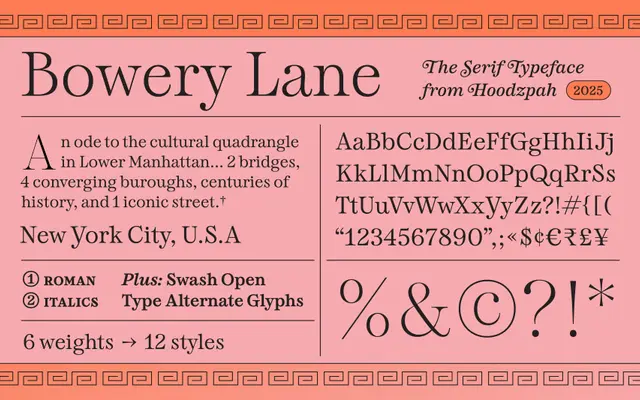
Bowery Lane
Fort Foundry · Amy Hood
A 12-style transitional serif with swash alternates for both roman and italic cuts, drawing on Scotch Modern and slab traditions.
Designed by Amy Hood, it sits somewhere between Scotch Modern, transitional and slab serif conventions, with moderate contrast that keeps it readable at smaller sizes. Swash style sets are available for both the italic and roman styles, offering a rounder, more whimsical character than the old-money restraint of a Caslon. The family spans six weights from Thin to Black, each with a matching italic.
The foundry describes it as sitting between a Scotch Modern, Transitional and Slab serif, with moderate contrast and swash alternates for both roman and italic styles, which places it squarely in the transitional serif tradition with eclectic influences.